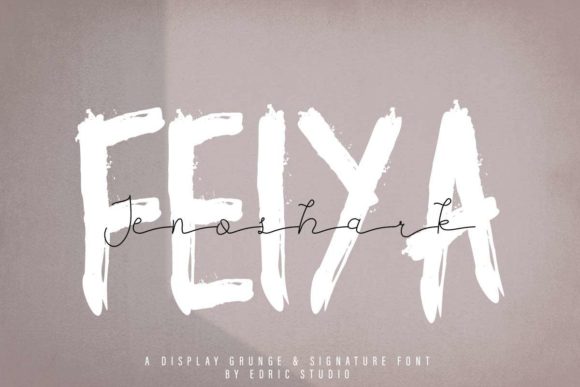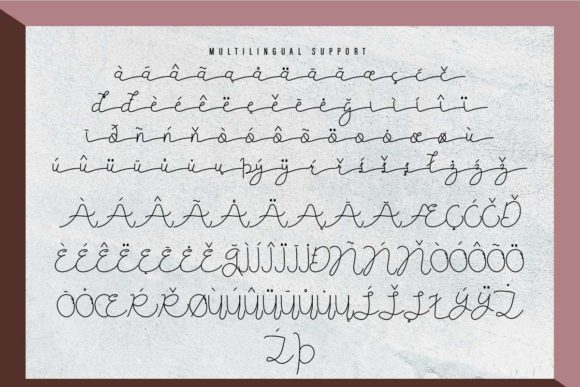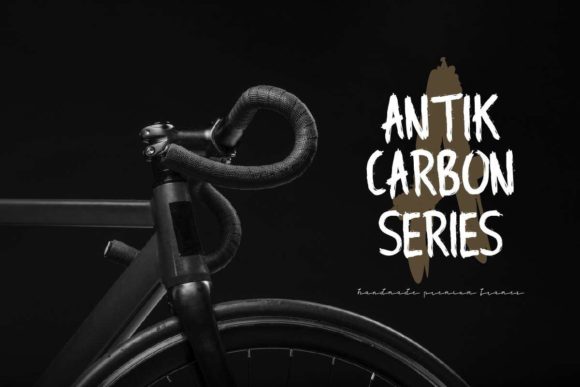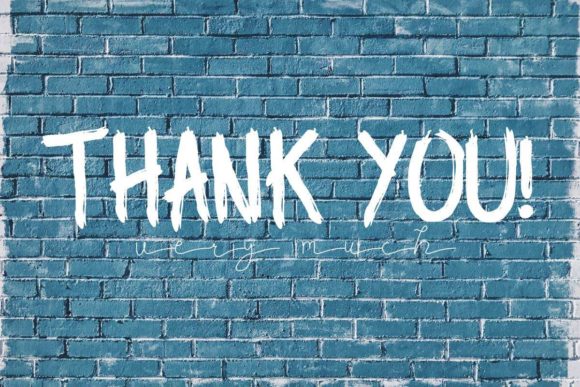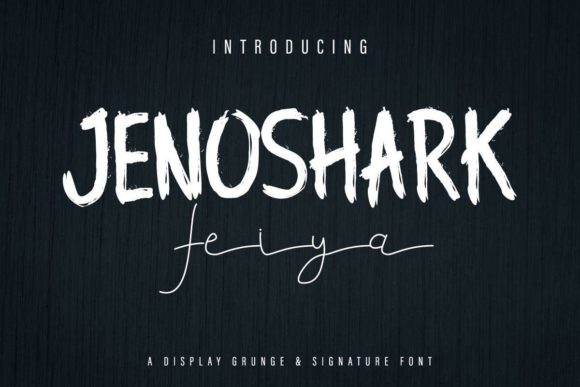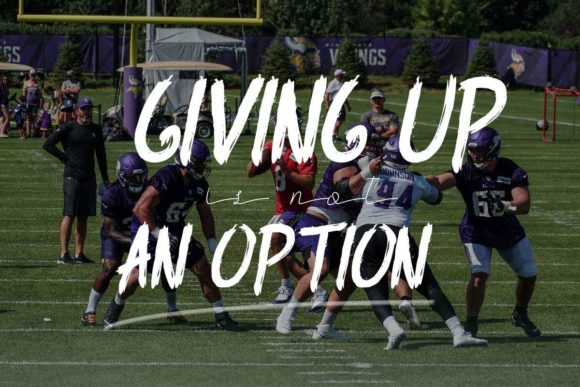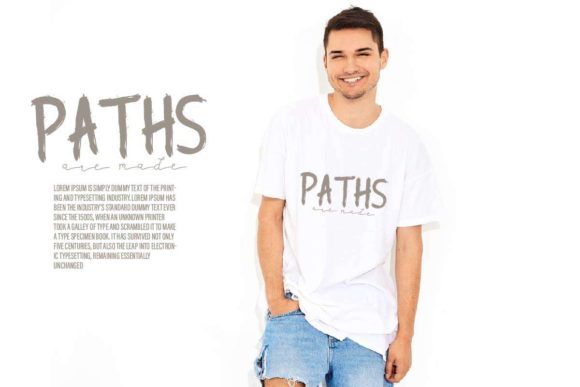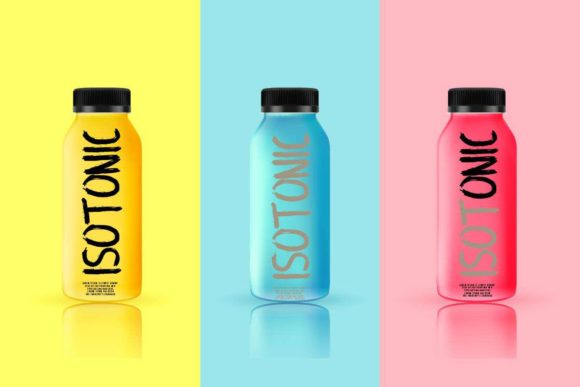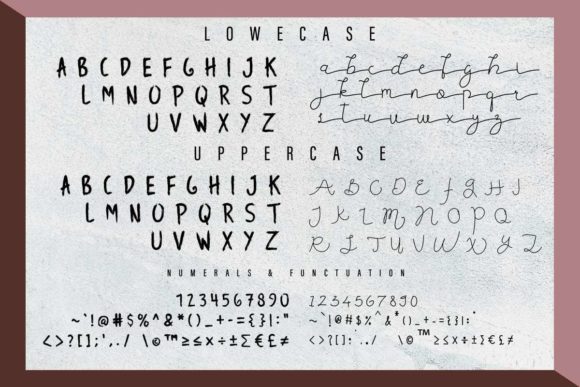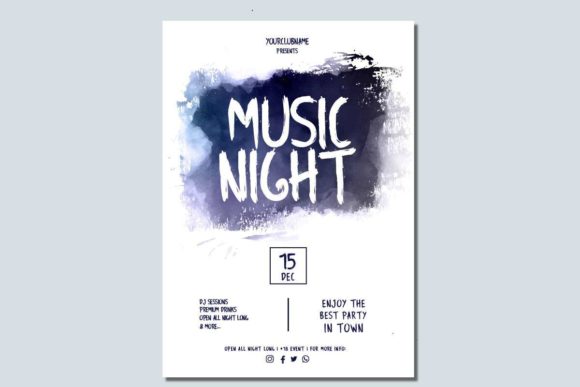
Jenoshark Feiya Font
About Jenoshark Feiya Font
Jenoshark Feiya is a casual, fun script font, created by using a brush pen. Clean and a little bit quirky, this font is the perfect fit for all of your logos, branding, social media, and crafty DIY projects.